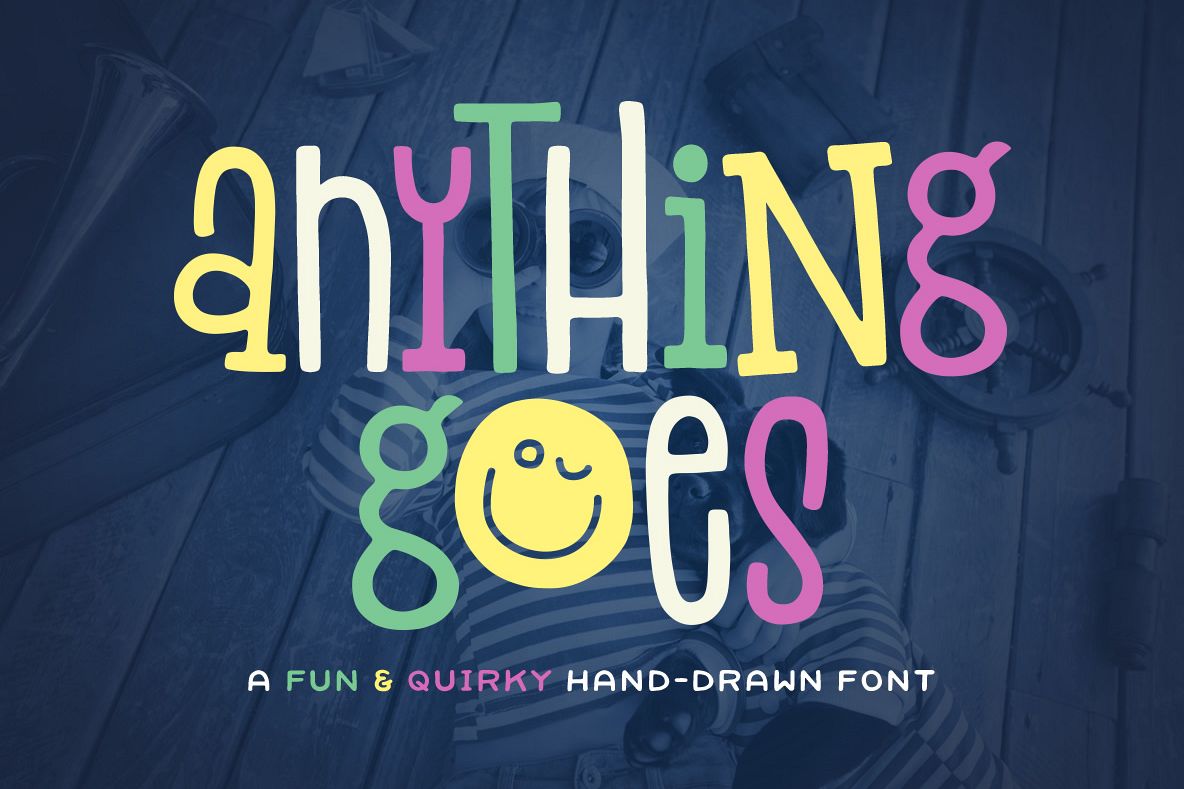
Anything Goes Font
Anything Goes is a charming font with a quirky, hand-drawn style. It is perfect for logos, children's books, package design, typographic posters, etc. As the name says, Anything Goes!
Fantastically fun design, the layering gives that extra quirkiness I like when designing for 'fun' holidays and kids projects.